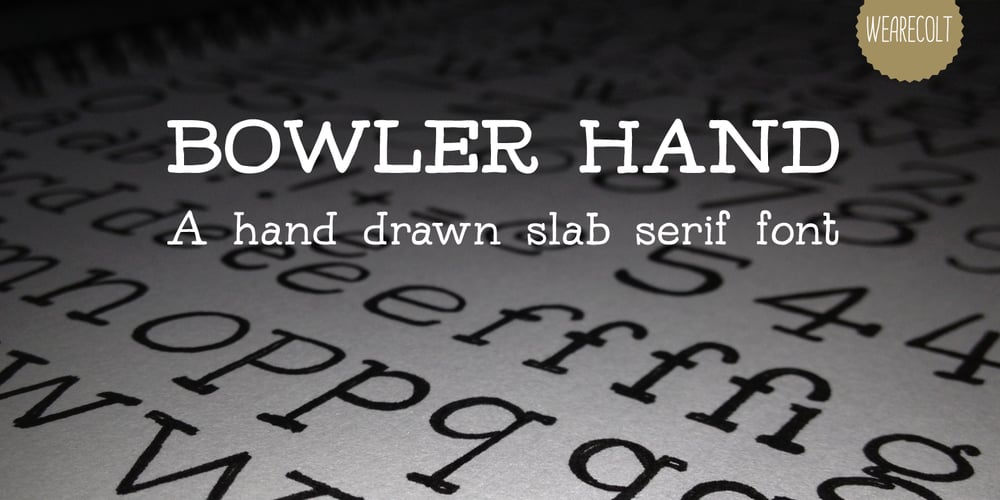
Bowler Hand Font Family was designed by Adam Greasley and published by wearecolt. Bowler Hand contains 3 styles and family package options. Bowler Hand has been created from hand drawn letter forms using a Rotring ink pen which gives the font a great look.